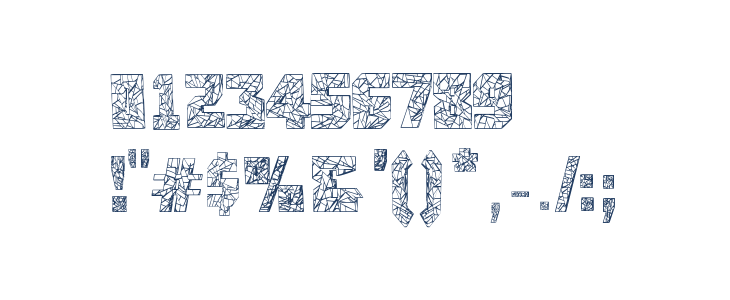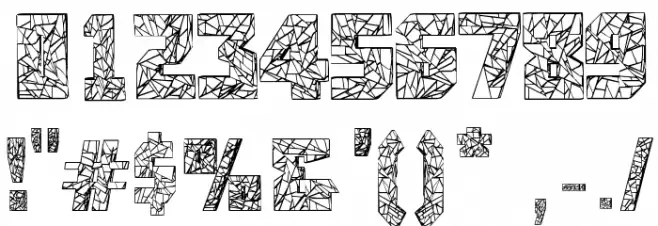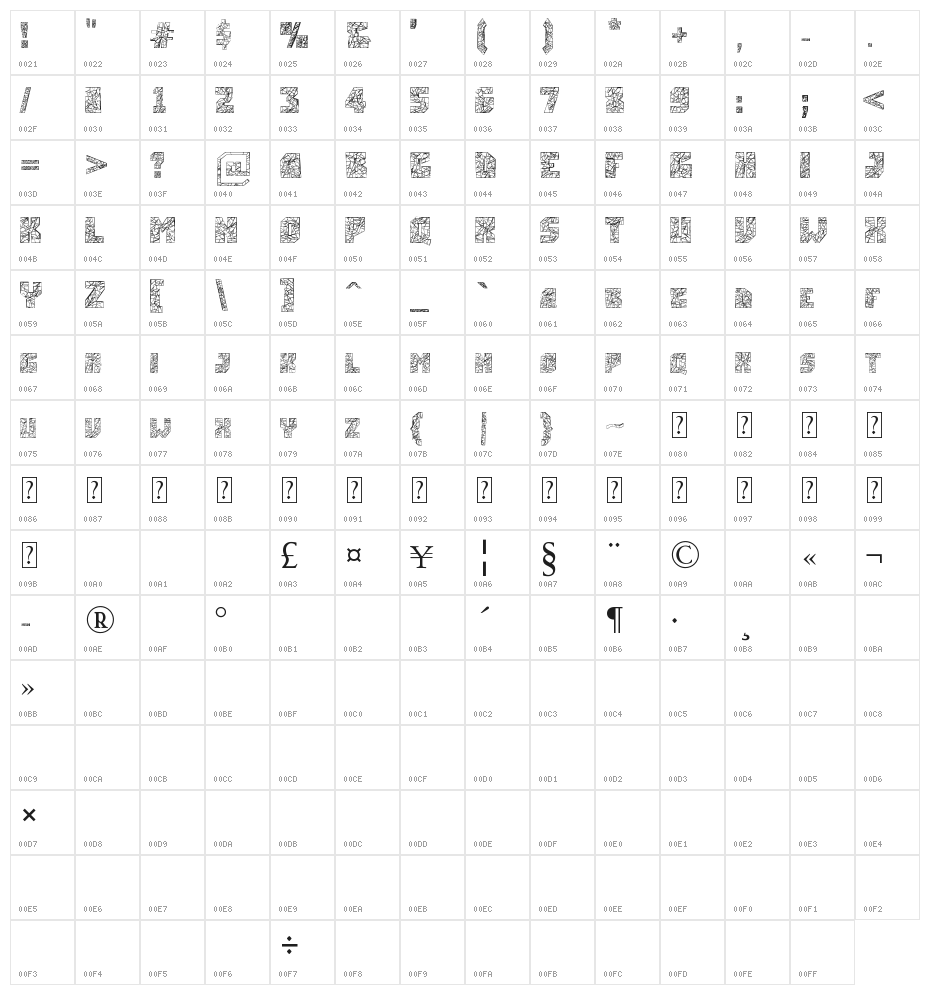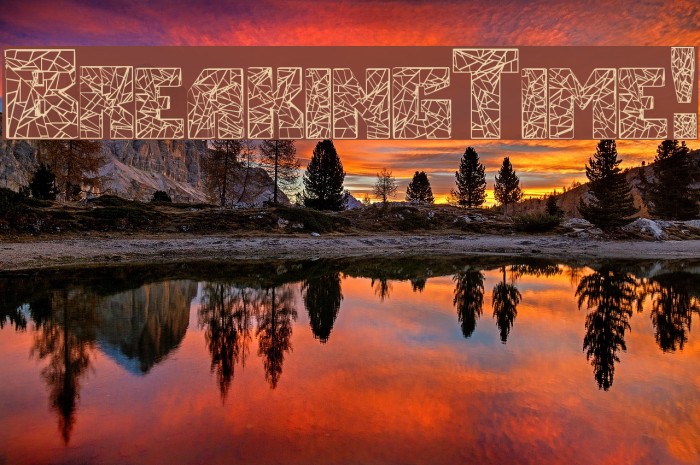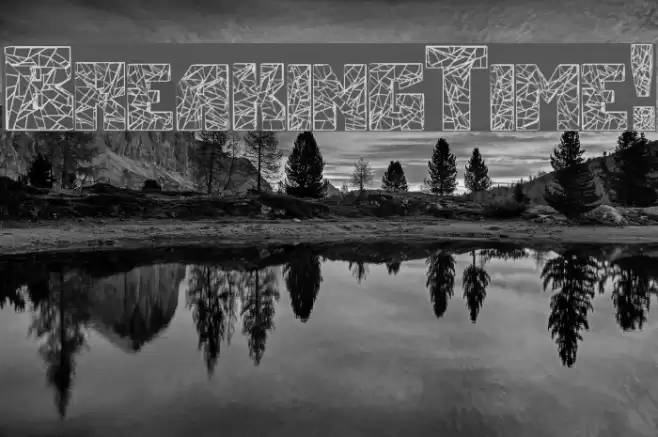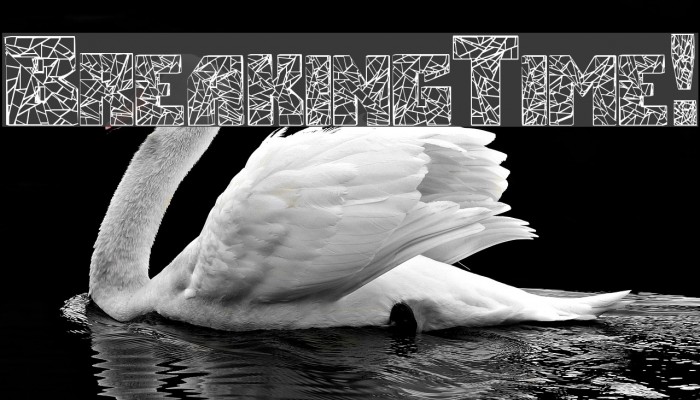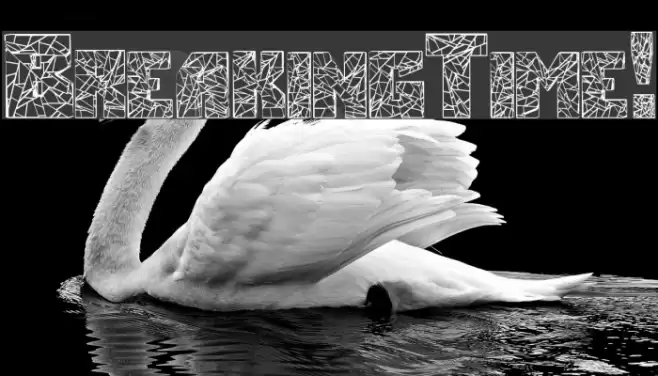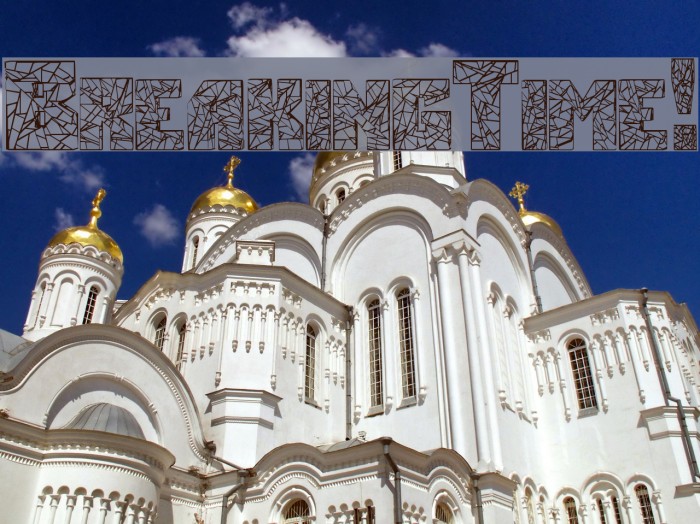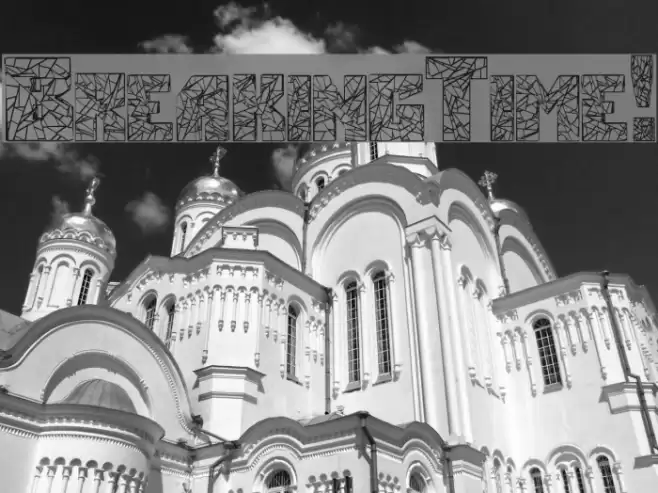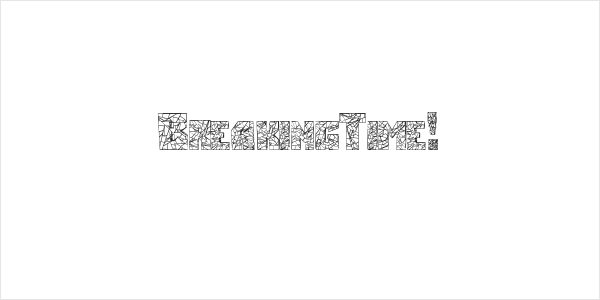
BreakingTime! Font
BreakingTime! Description
This font features a unique, fragmented design that resembles shattered glass or a mosaic pattern. Each character is composed of intricate, angular shapes that create a sense of movement and energy. The bold, geometric style is eye-catching and modern, making it ideal for creative projects that require a distinctive visual impact. The uppercase and lowercase letters maintain a consistent design theme, while the numbers and special characters integrate seamlessly with the overall aesthetic. This font's unconventional style is perfect for projects that aim to stand out and make a bold statement.
| Proposed Projects | Album covers, posters, branding for edgy or modern companies, and artistic event invitations. |